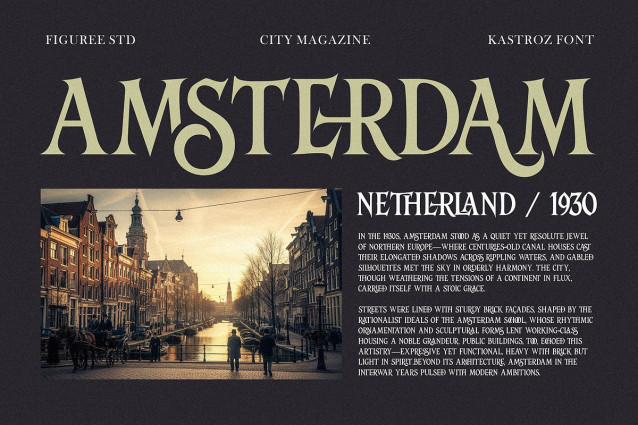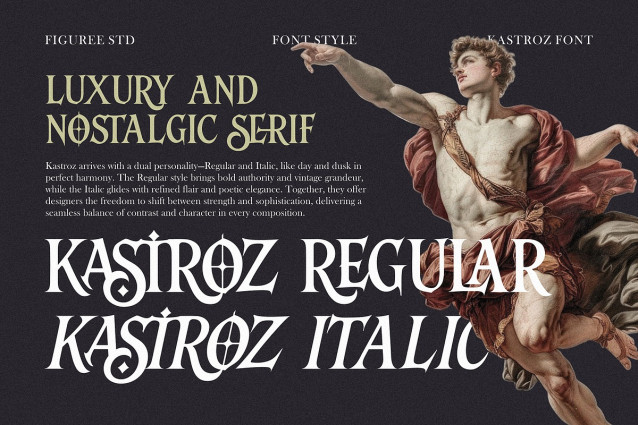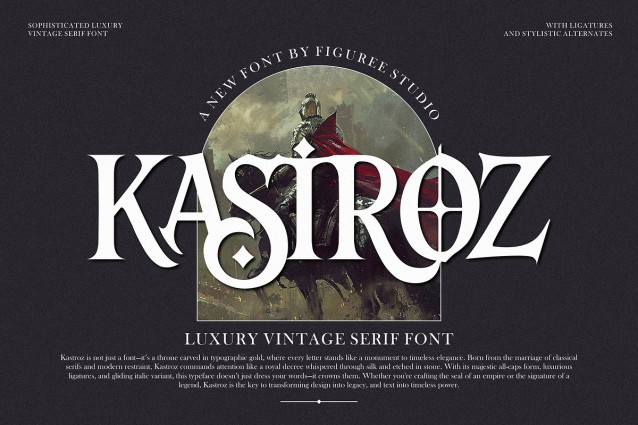
Kastroz Font
Kastroz Font is a high-impact luxury vintage serif font designed to elevate your typography with timeless elegance and bold precision. Featuring all-caps characters and unique ligatures, Kastroz brings refined detail and strong presence to logos, packaging, editorial layouts, and brand identities that demand sophistication.
Whether you’re crafting a premium label, designing book covers, or building an upscale visual identity, Kastroz delivers a perfect blend of vintage serif charm and modern elegance. Its carefully balanced proportions make it the ideal serif font for logos, headlines, and high-end branding projects.